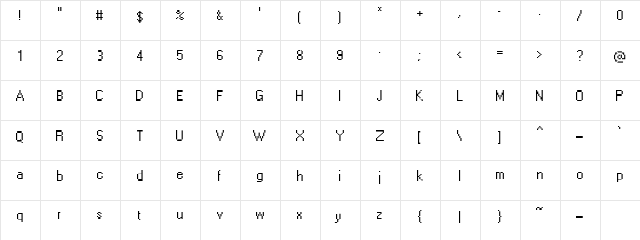
LeviWindows ExtraLight
Design Context for LeviWindows Typeface
LeviWindows offers clean, dependable letterforms without strong stylistic allegiance, making it a practical choice for designers who need flexibility. The delicate stroke weight brings airiness and refinement to layouts.